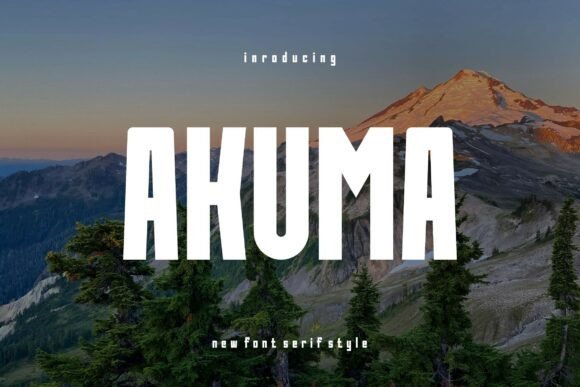
Unleash Your Inner Creativity with Akuma Font
You’ve got an idea, and it’s burning a hole in your creative pocket. The concept is cool, the style is edgy, but the font just doesn’t quite fit. That’s where Akuma Font comes in – a bold sans display font designed to elevate your creative projects to the next level.
Akuma Font is more than just a font; it’s a statement piece that adds depth and character to your work. Its sleek lines and striking typography make it the perfect choice for designers looking to make a lasting impression. Whether you’re working on a new logo, branding campaign, or digital art piece, Akuma Font is sure to deliver results.
Akuma Font Key Features
- Size: The font family includes 4 weights (Thin, Light, Regular, and Bold), providing a range of options for designers to achieve the desired visual impact.
- Unique Characteristics: The font features a distinctive, bold, and dynamic design, making it ideal for use in titles, headings, and other high-impact text elements.
Akuma Font Review
I recently had the chance to work with the Akuma font, and I must say it’s a unique and bold addition to any design project. ✨ One of the things I appreciate most about this font is its versatility – it can be used for anything from logos to posters, and it’s sure to grab attention. ✨ The font’s Gothic-inspired design gives it a rugged, edgy feel that’s perfect for projects that need a bit of attitude.
However, I did encounter a few limitations while using the Akuma font. ⚠️ One of the biggest issues I faced was with font rendering on certain devices – it seemed to appear pixelated or distorted on some screens. ⚠️ Additionally, the font’s bold style can be overwhelming in smaller sizes or for large blocks of text, which can make it difficult to read.
What I Wish Was Different
- Improved font rendering across different devices and screen sizes
- A more subtle version of the font for smaller sizes or large blocks of text
- Additional weights or styles to complement the existing bold and regular versions
The Akuma font is a great choice for designers who want to add some edge to their projects. While it may have some limitations, its unique design and versatility make it a valuable addition to any font collection. With a few tweaks to address the issues I mentioned, I’d be happy to recommend the Akuma font to anyone looking to add some attitude to their design work.
The Akuma Font is ideal for:
- Edgy, bold designs
- Streetwear and fashion branding
- Dark, moody artwork